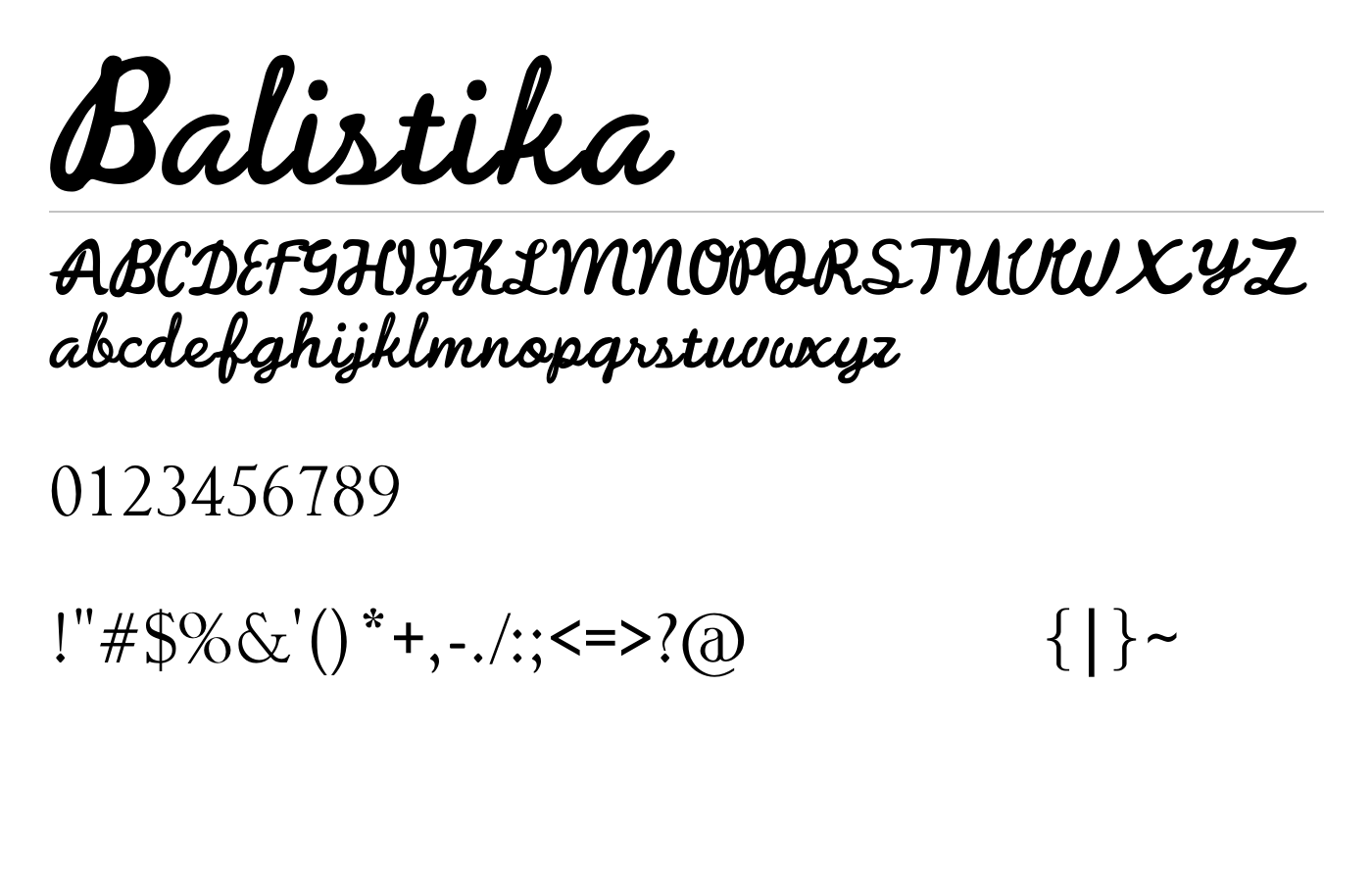
Balistika is a charming script font with smooth, flowing strokes that evoke a friendly and approachable vibe. Its moderate weight and slightly condensed letterforms make it perfect for stylish yet readable headlines, logos, and creative projects that seek a personal, handcrafted feel. This font works well for branding and editorial uses where a casual, elegant touch is desired.
Balistika Font
About Balistika Font